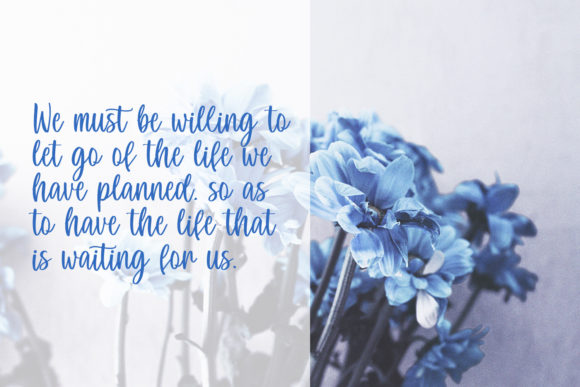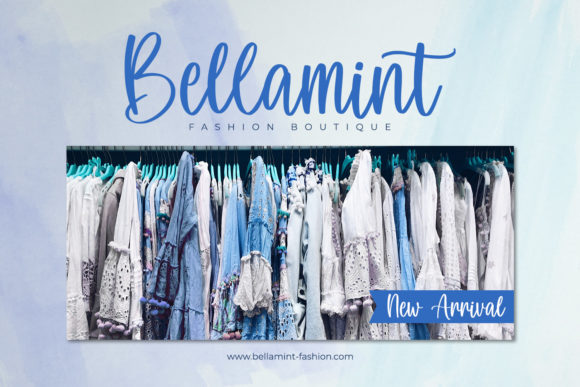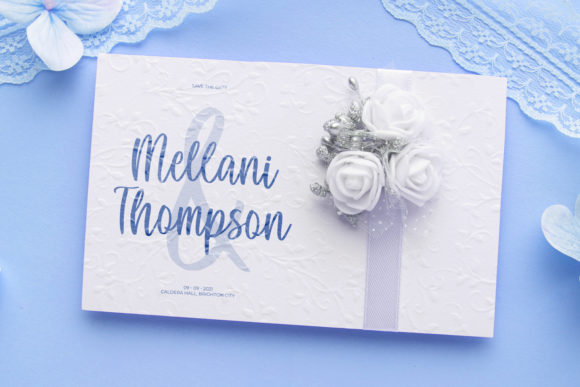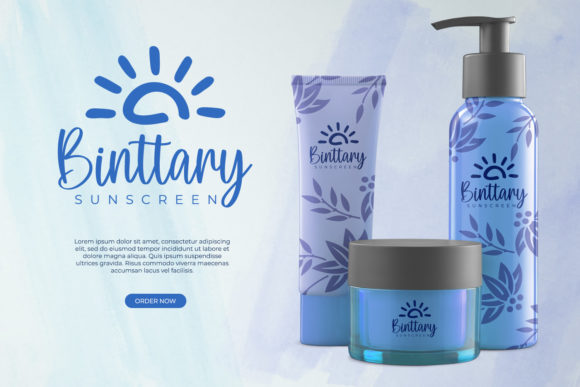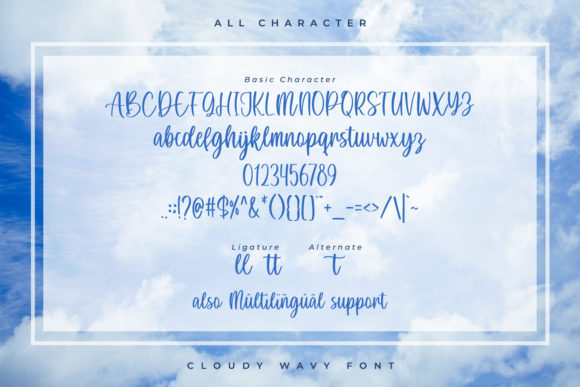
Cloudy Wavy Font
About Cloudy Wavy Font
Cloudy Wavy is a beautiful handwritten font. Not too thin and not too thick, balanced and varied, Cloudy Wavy was designed to enhance the beauty of your projects.